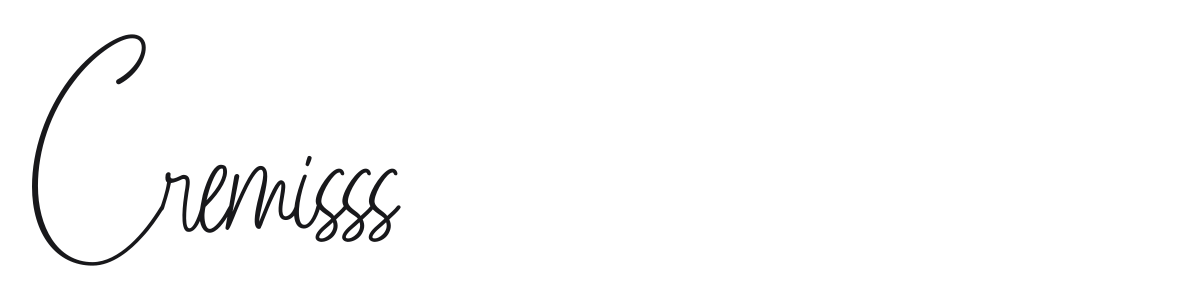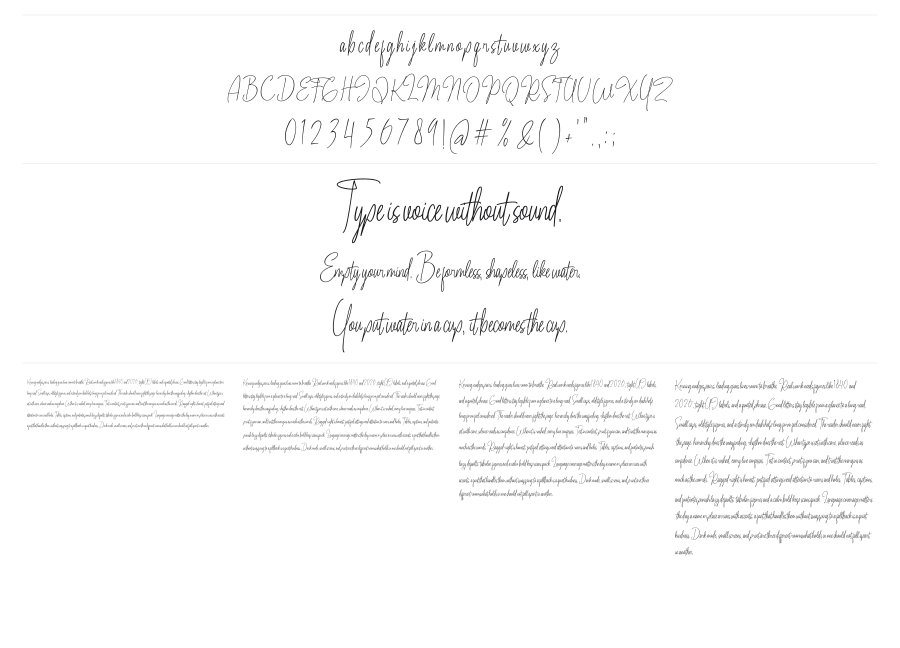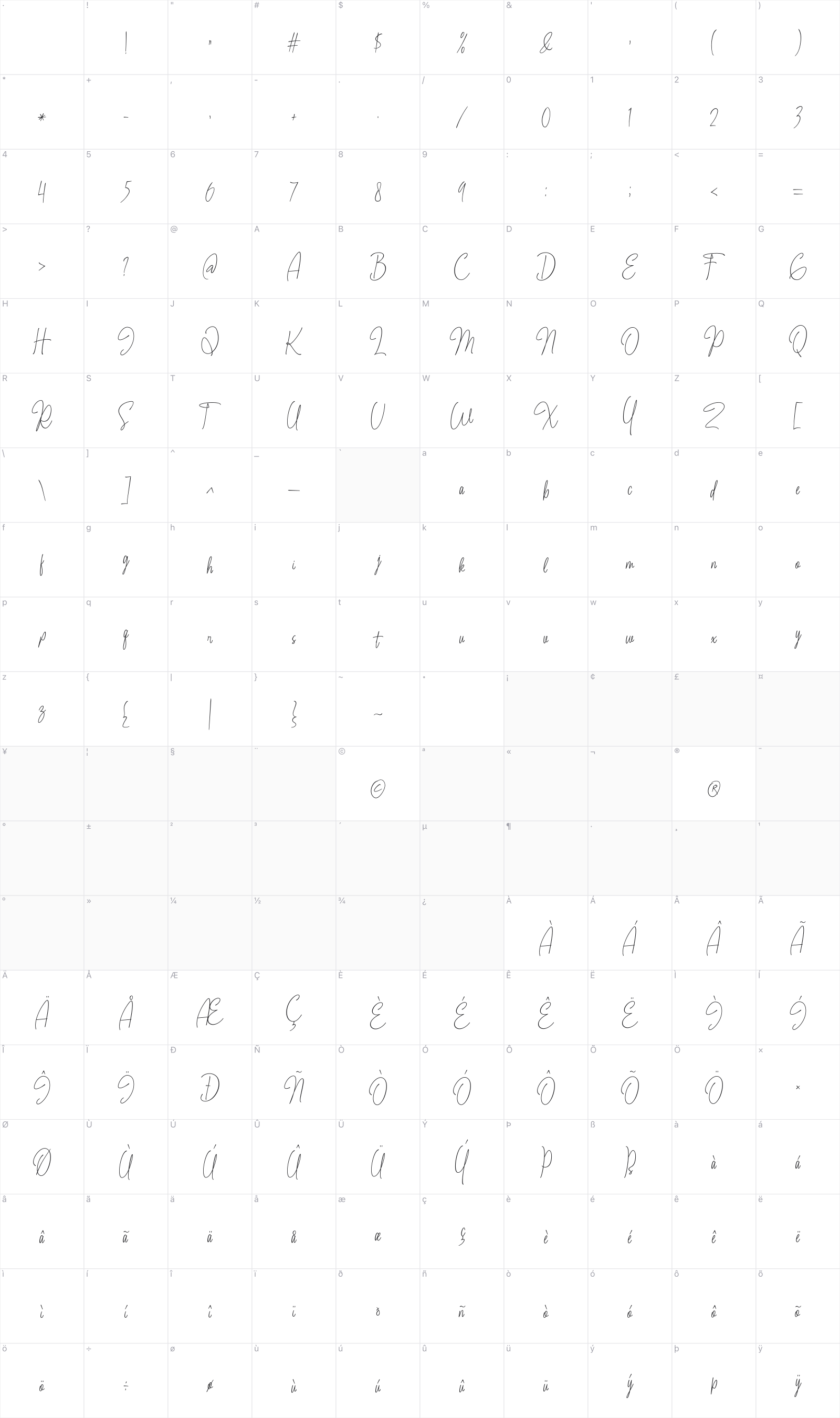
Cremisss
Cremisss is a flowing casual script with thin, near-monoweight strokes and a graceful rightward lean. Long looping ascenders and descenders give it an airy, handwritten quality that feels both relaxed and polished. A natural choice for branding, packaging, and any project that needs warmth without formality.